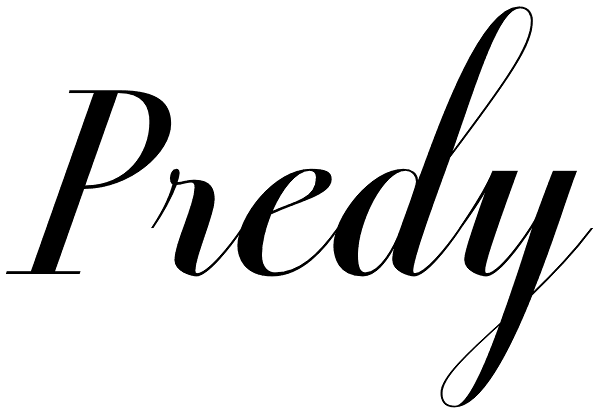
Predy
In the era of digital types, the round handmade cursive continues to intrigue many type designers, probably by their beautiful and graceful calligraphic origins. However, what is certainly true, is that all good traditional pen-formed script may be...